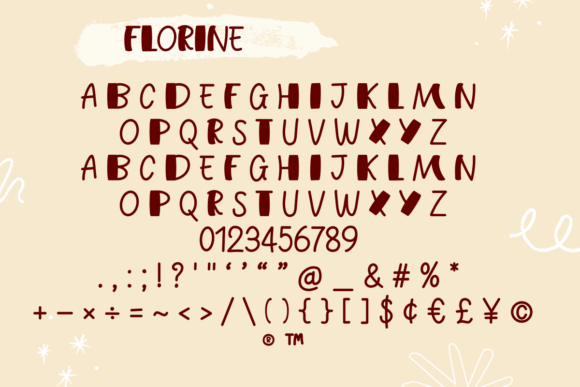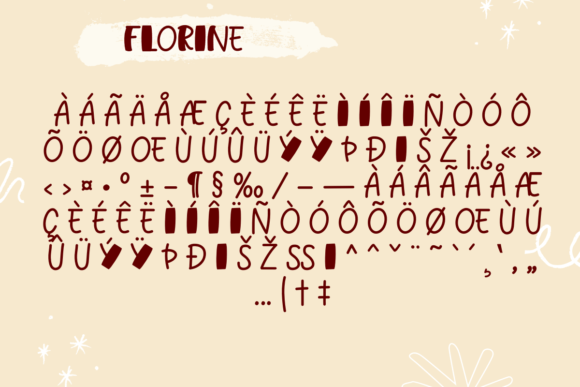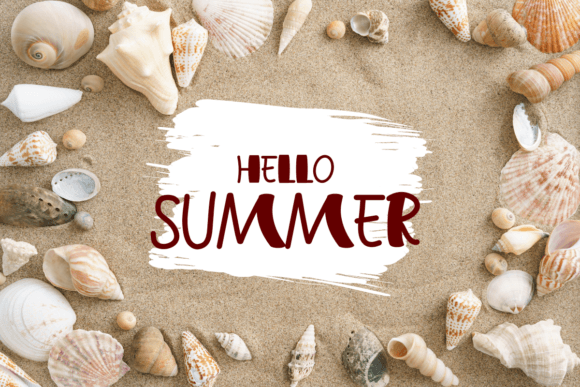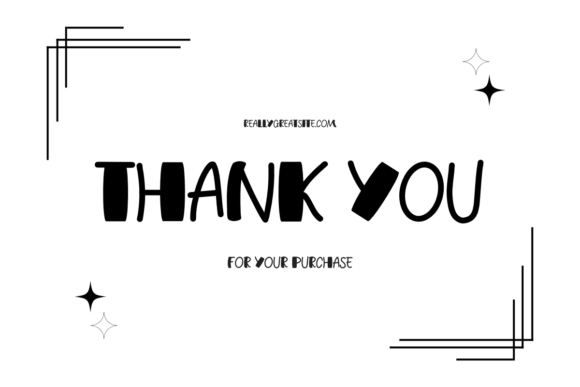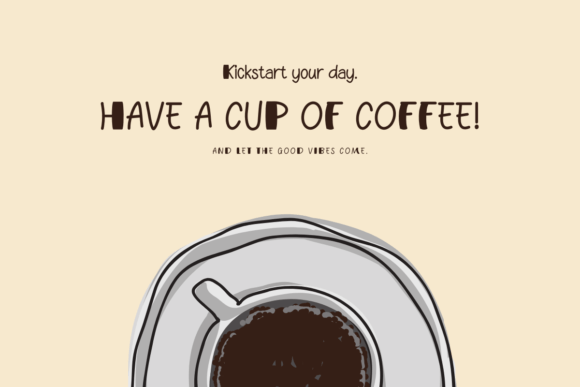
Introducing Fluorine Font: The Cute and Friendly Handwritten Display Font
Are you tired of using the same old fonts for your designs? Look no further! Fluorine Font is a delightful and charming handwritten display font that is perfect for adding a personal touch to your creations. In this article, we’ll explore the features and uses of Fluorine Font, and why it’s a must-have for designers and crafters alike.
What is Fluorine Font?
Fluorine Font is a beautiful, handcrafted font that exudes warmth and friendliness. Its cute and playful design makes it ideal for a variety of projects, from personal notes and diaries to professional designs and marketing materials. With its unique and distinctive style, Fluorine Font is sure to capture the attention of your audience and leave a lasting impression.
Uses of Fluorine Font
Fluorine Font is incredibly versatile and can be used for a wide range of projects, including:
- Note-taking: Add a personal touch to your notes and journals with Fluorine Font.
- Diaries: Write your thoughts and feelings in a beautiful and expressive font.
- Greeting cards: Create heartfelt and personalized greeting cards for special occasions.
- Banners: Add a pop of color and personality to your banners and posters.
- Content creation: Use Fluorine Font to create engaging and eye-catching content for your blog or social media channels.
- Mugs and ceramics: Add a personal touch to your mugs, cups, and other ceramics.
- Cards and invitations: Create beautiful and unique cards and invitations for special occasions.
- Shirts and apparel: Design eye-catching and stylish shirts and apparel with Fluorine Font.
- Stationery: Create personalized stationery, such as letterheads and journals.
- Social media posts: Add a touch of personality to your social media posts and stories.
Why Choose Fluorine Font?
So, why should you choose Fluorine Font for your designs? Here are just a few reasons:
- Unique and distinctive style: Fluorine Font has a one-of-a-kind design that will set your creations apart from the rest.
- Easy to read: Despite its playful design, Fluorine Font is easy to read and understand, making it perfect for body text and captions.
- Versatile: Fluorine Font can be used for a wide range of projects, from personal to professional.
- Cute and friendly: Fluorine Font has a warm and inviting personality that will make your designs feel approachable and friendly.
Tips for Using Fluorine Font
Here are a few tips for getting the most out of Fluorine Font:
- Experiment with colors: Fluorine Font looks great in a variety of colors, so don’t be afraid to experiment and find the perfect hue for your design.
- Mix and match: Combine Fluorine Font with other fonts and design elements to create a unique and eye-catching design.
- Keep it simple: Don’t overcomplicate your design – Fluorine Font is beautiful on its own, so let it shine!
In conclusion, Fluorine Font is a delightful and versatile handwritten display font that is perfect for designers and crafters alike. With its unique and distinctive style, ease of use, and wide range of applications, Fluorine Font is a must-have for anyone looking to add a personal touch to their designs. Whether you’re creating notes, diaries, greeting cards, or professional designs, Fluorine Font is sure to bring a smile to your face and a touch of personality to your creations.